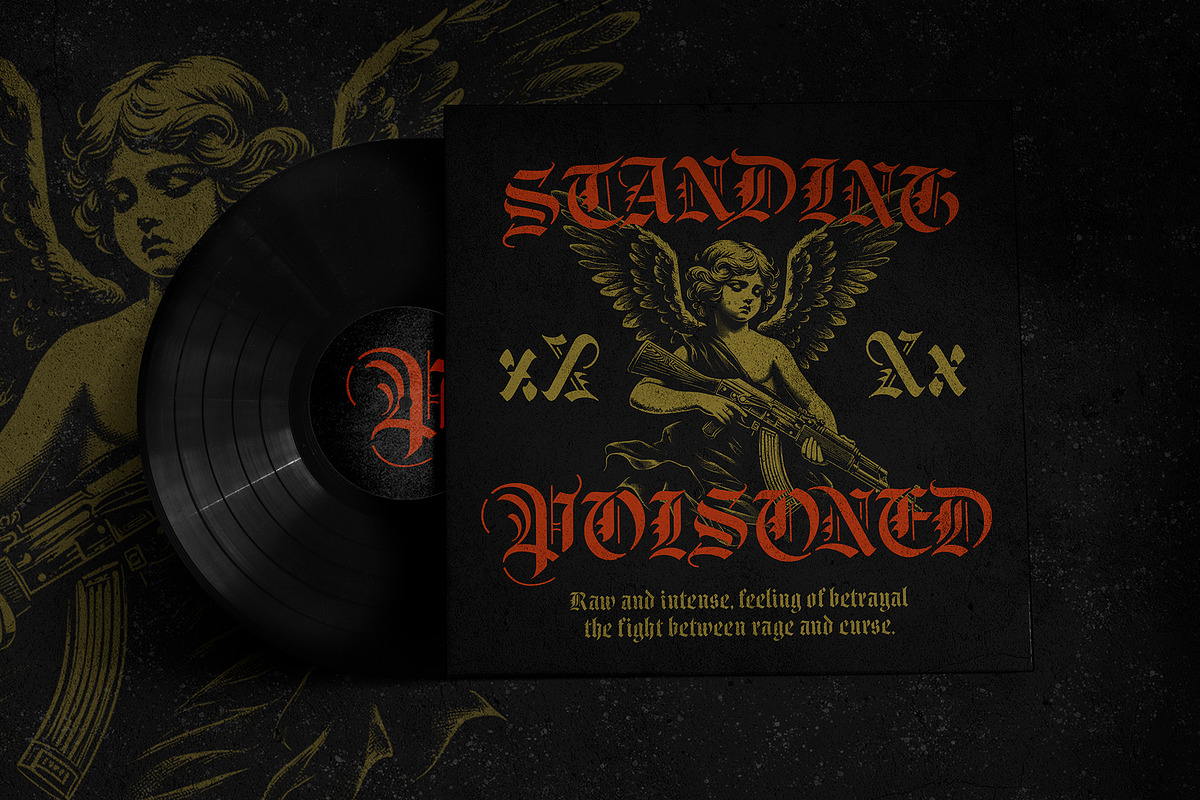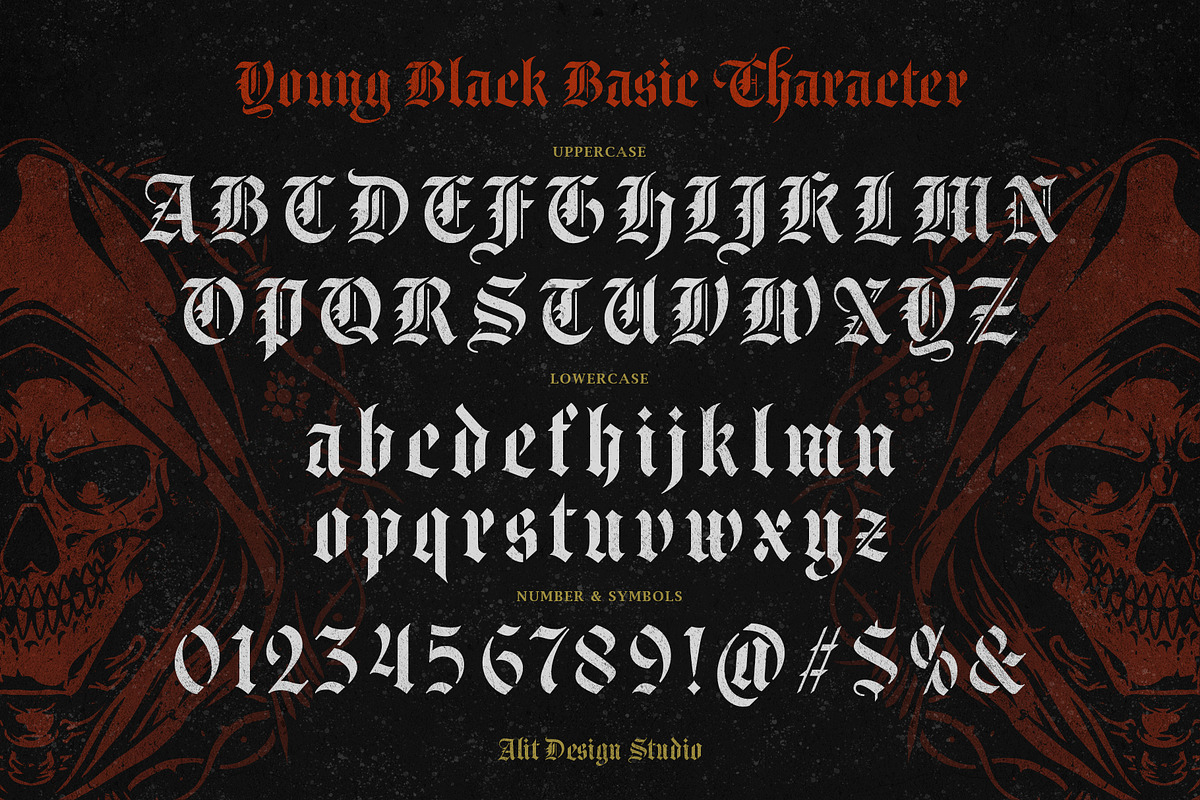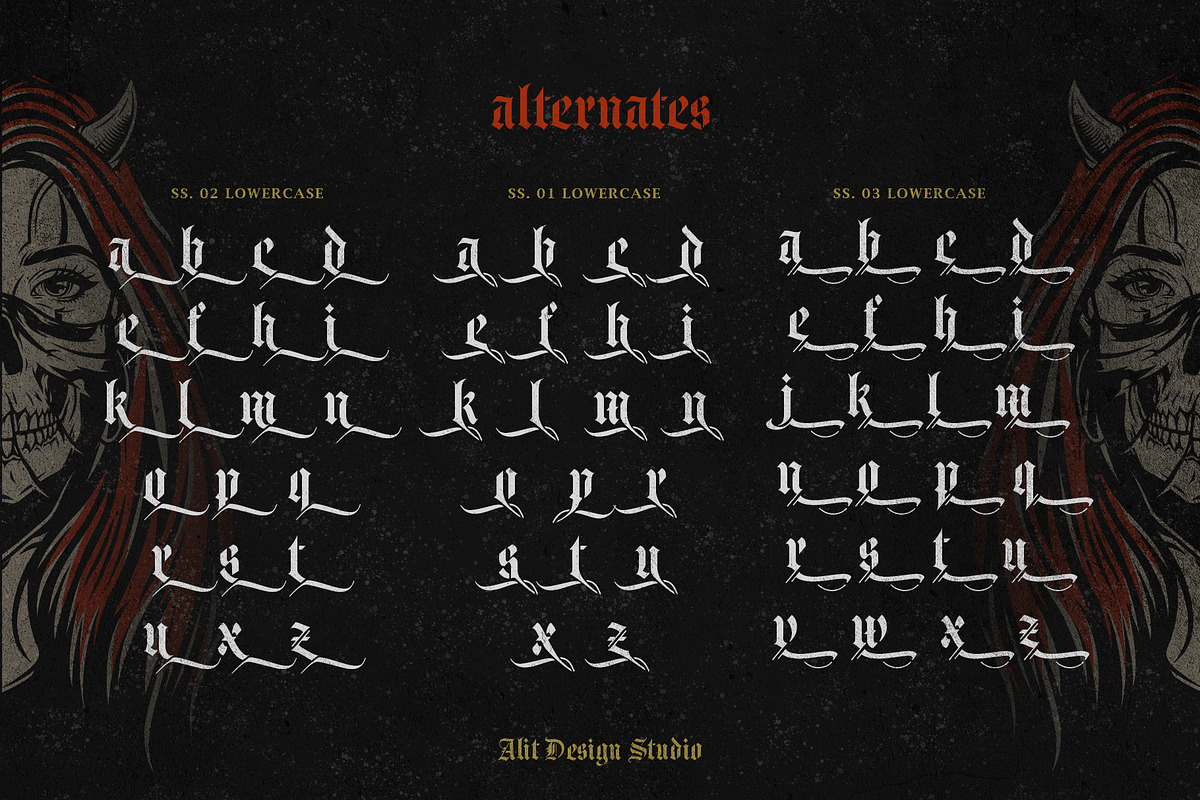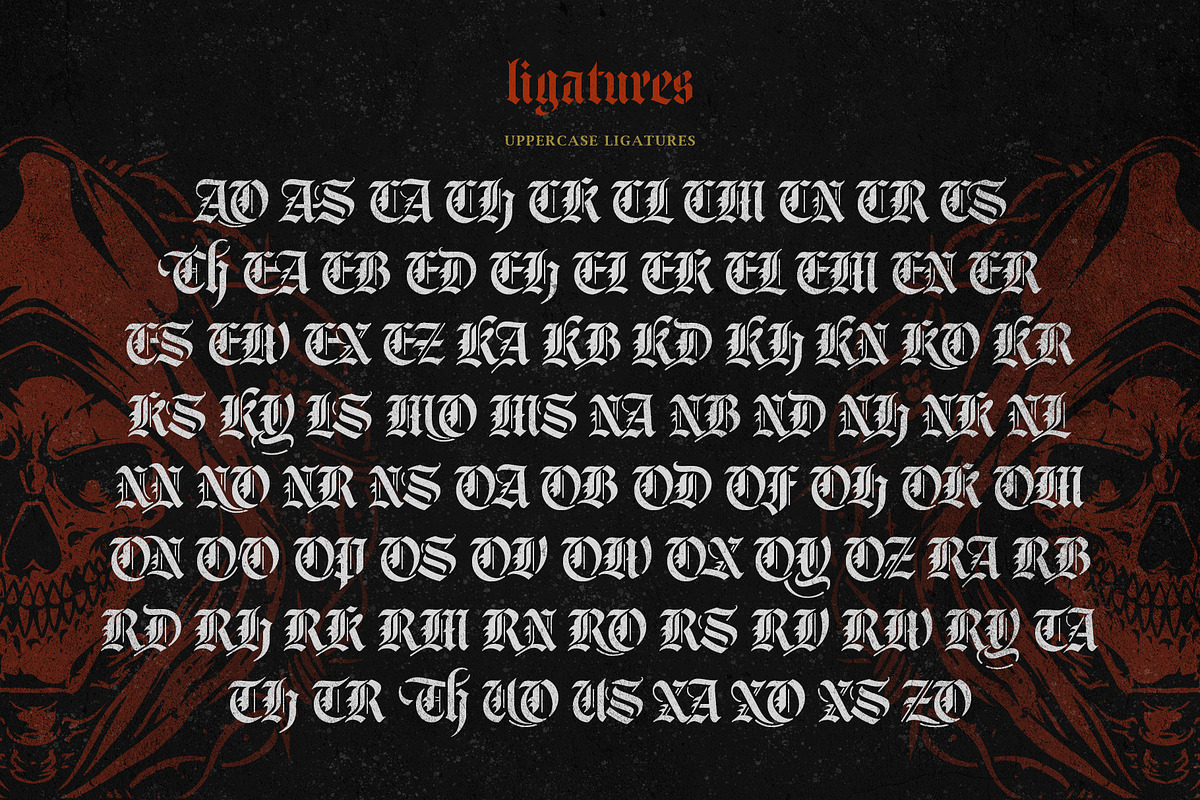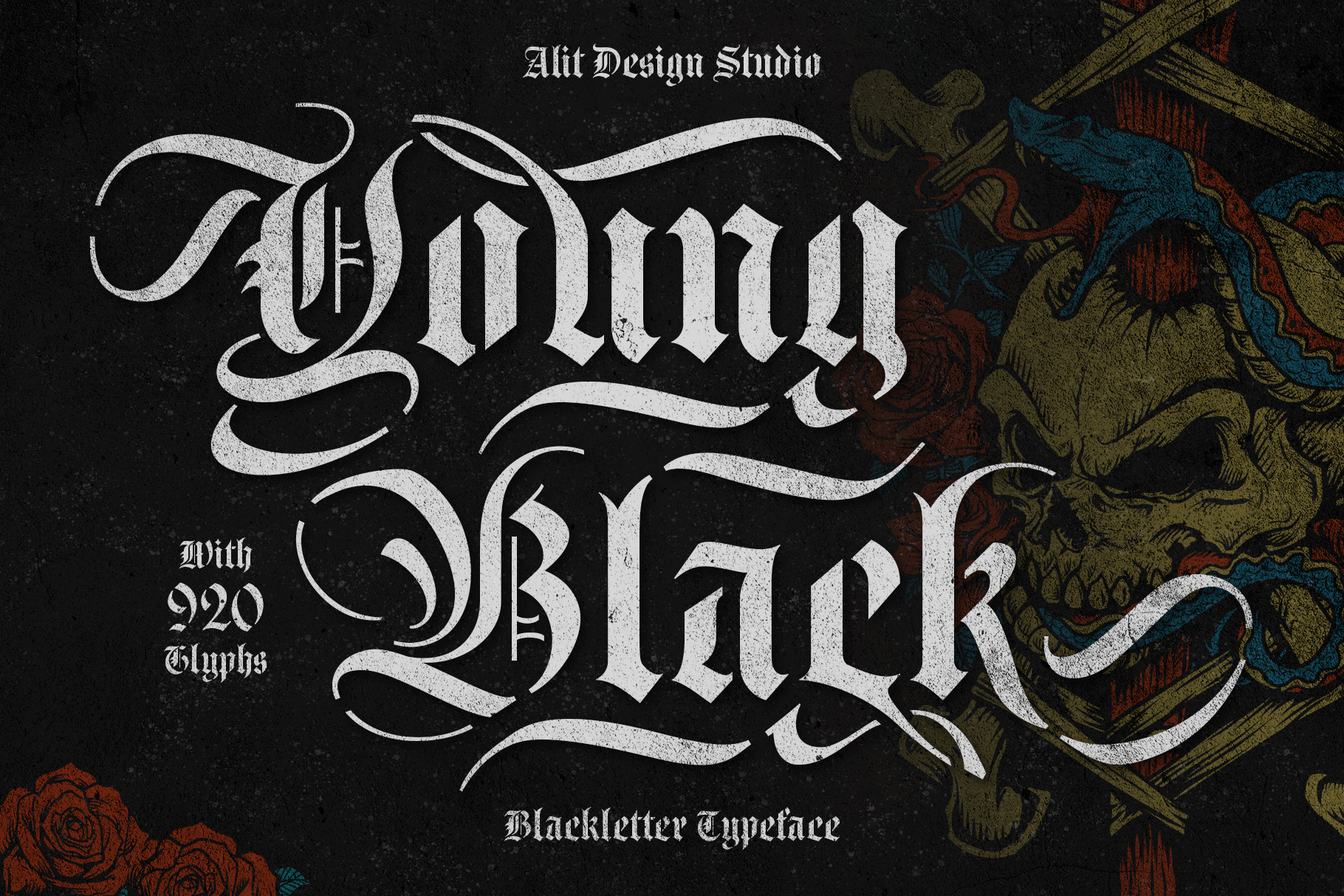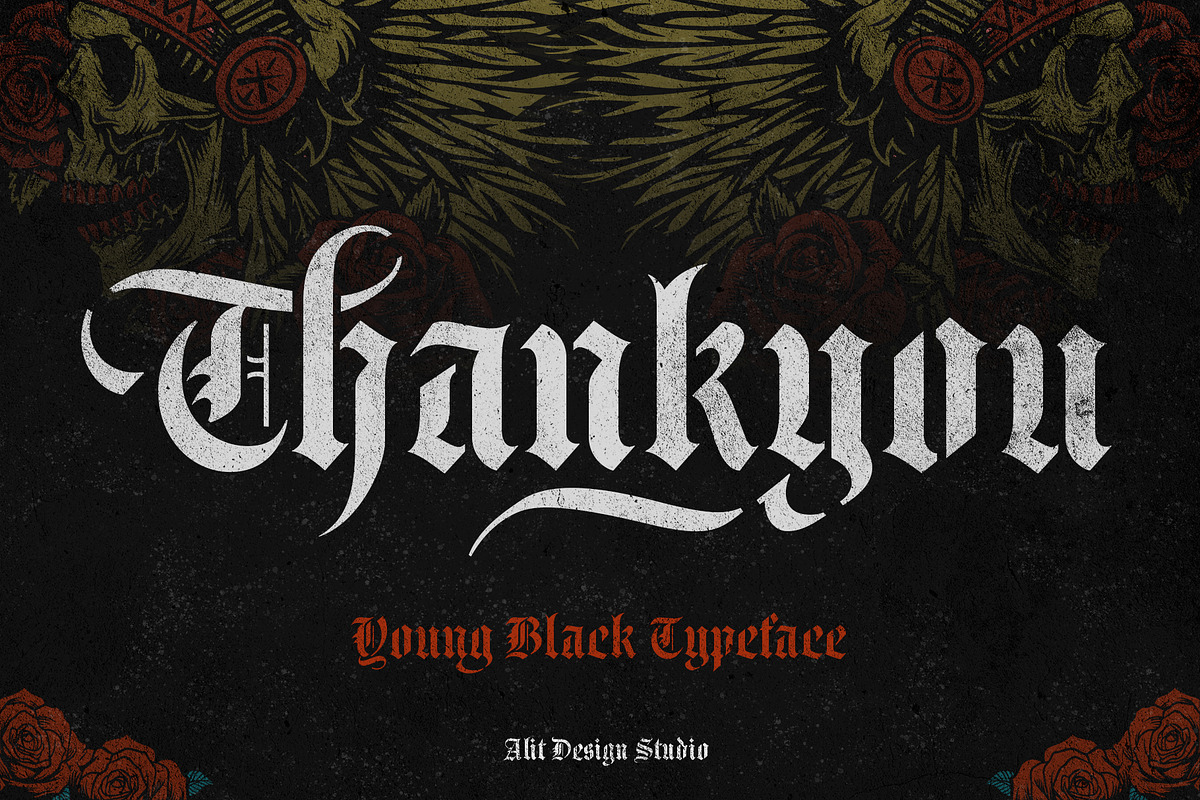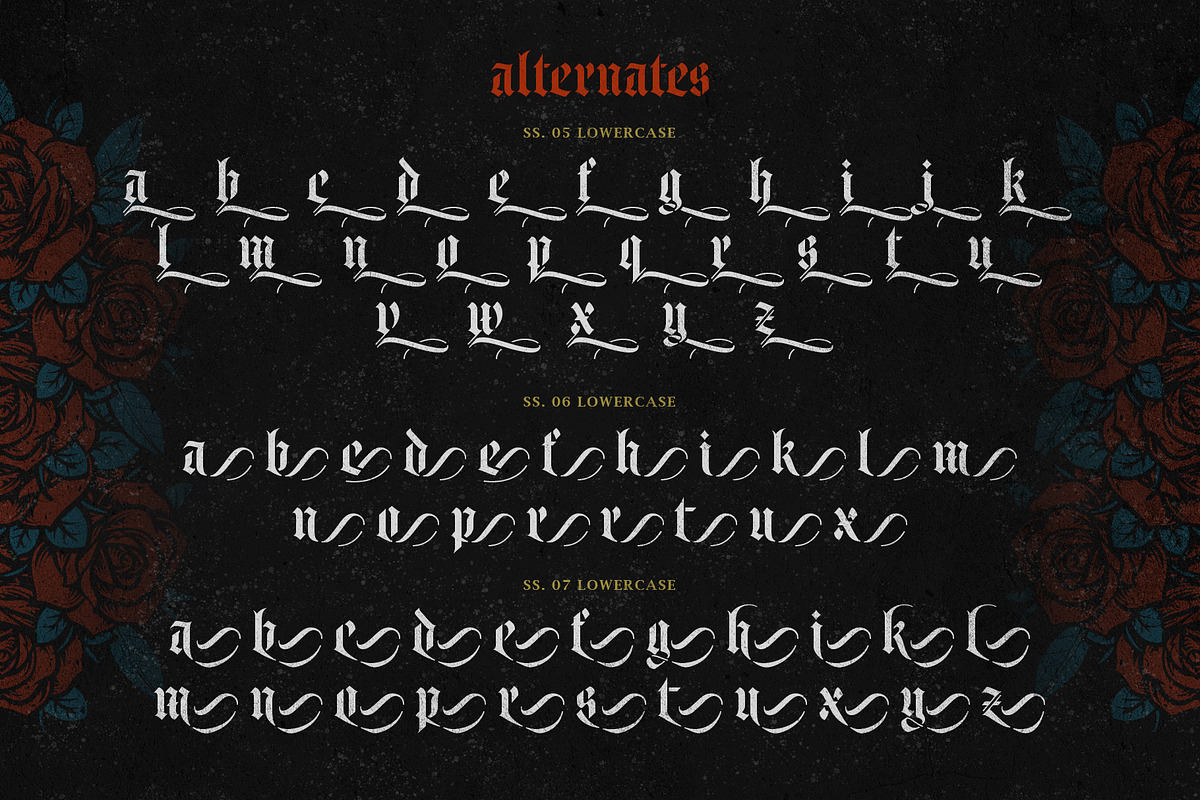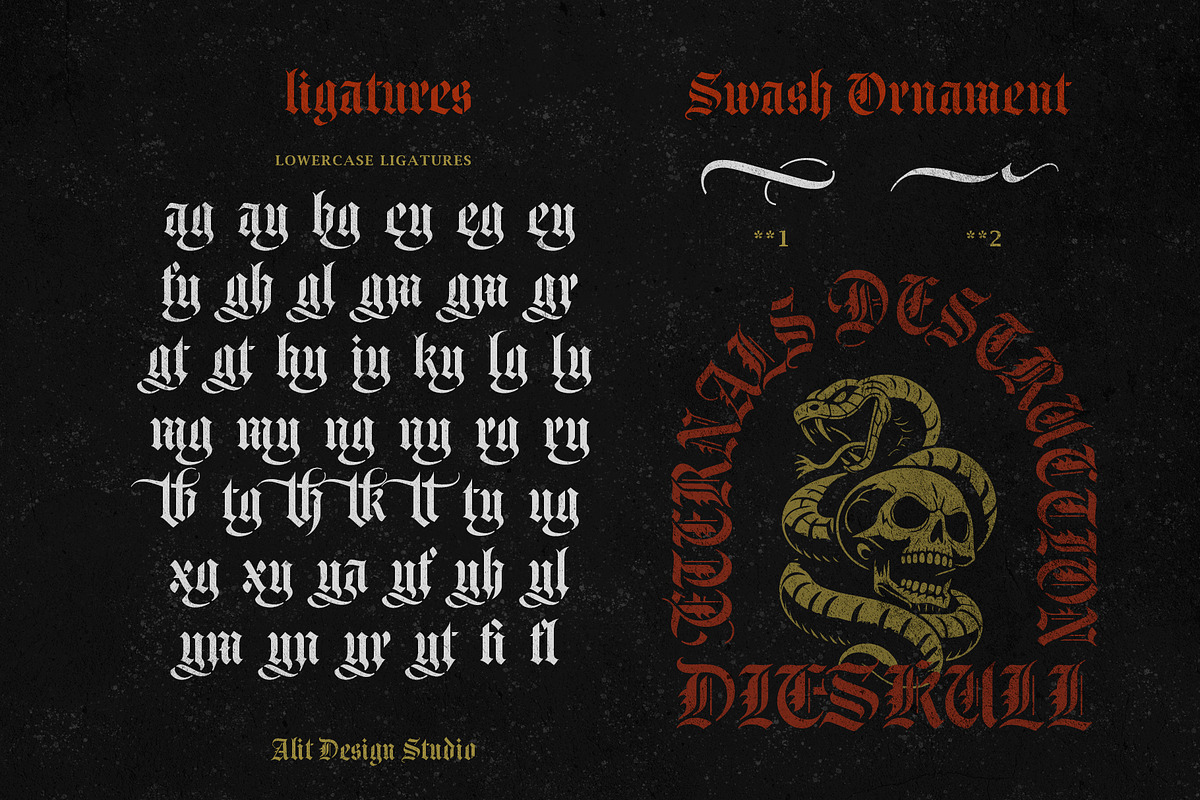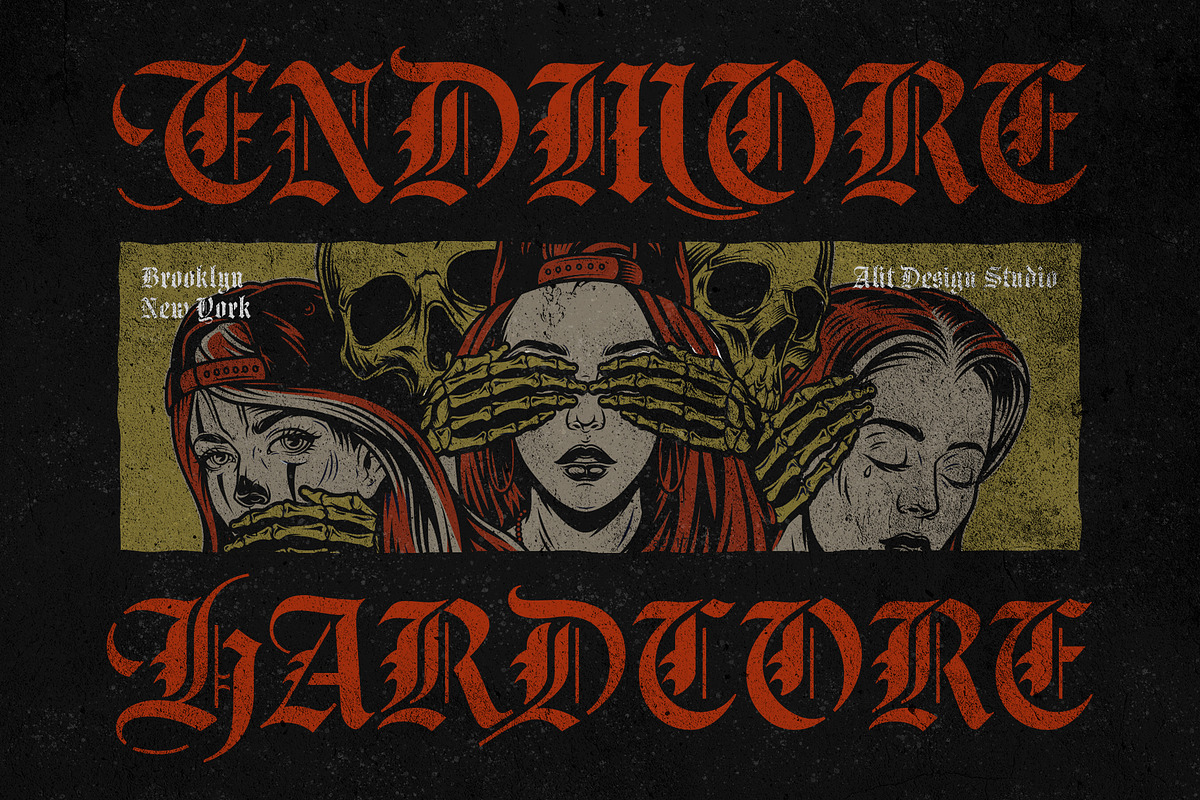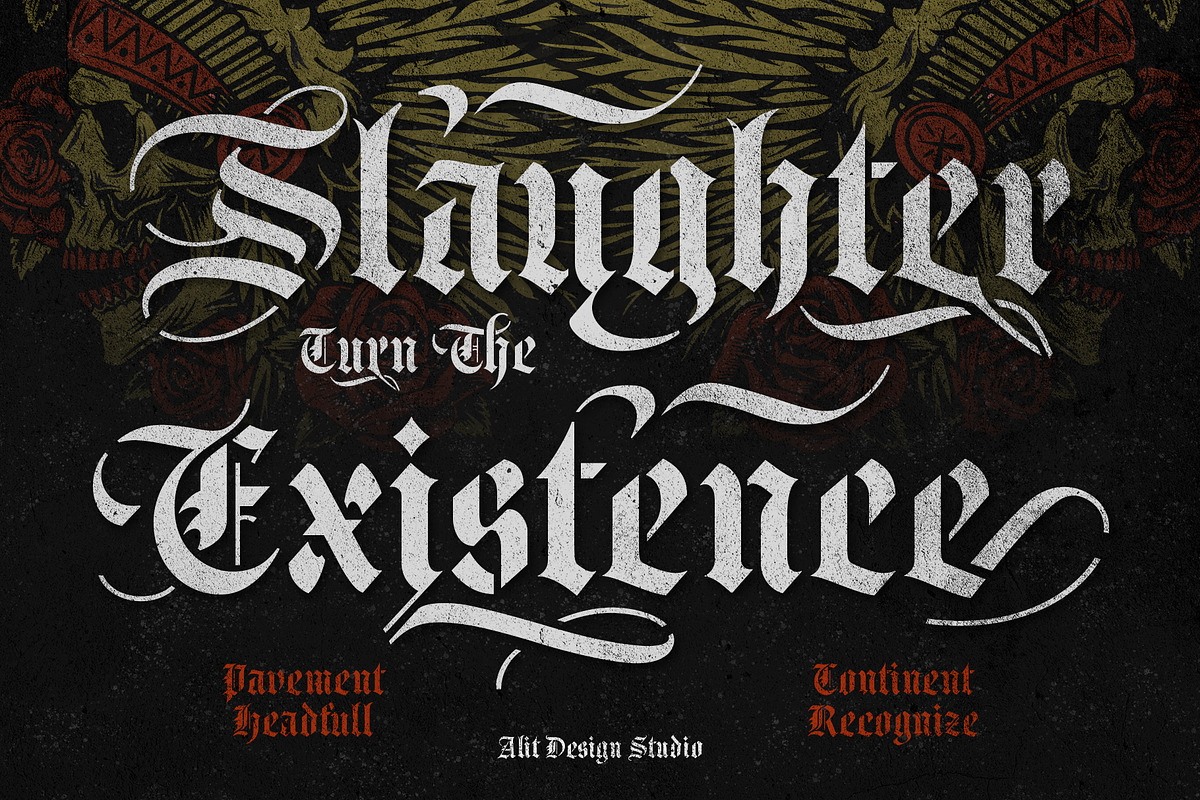
Young Black Typeface
Young Black Typeface – A Bold Fusion of Blackletter & Stencil Artistry
Step into the world of gothic elegance and raw power with Young Black Typeface, a meticulously designed blackletter stencil font that strikes the perfect balance between tradition and modern innovation. This typeface embodies a rebellious yet sophisticated aesthetic, making it ideal for designers looking to create striking visuals with a bold, historical feel.
What sets Young Black apart is its calculated stencil design—crafted with precision to ensure no part of the material is fully detached when cut, preserving the integrity of each character. Whether you’re working with digital projects or physical stencil applications, this typeface guarantees both usability and artistic impact.
1. Precision-Crafted Stencil Blackletter
- Inspired by traditional blackletter calligraphy but adapted for a stencil format that is both stylish and highly functional.
- Each letter has been carefully designed to maintain its structural integrity when cut, making it an excellent choice for printing, engraving, and DIY stencil projects.
2. Extensive Glyph Set with 920 Characters
- A comprehensive character set offering a vast range of typographic possibilities.
- Supports uppercase, lowercase, numbers, punctuation, and symbols to cover all creative needs.
3. 128 Ligatures for Enhanced Aesthetics
- Custom ligatures allow for natural, fluid letter connections, ensuring a seamless and artistic typography experience.
- Perfect for creating unique logotypes, headers, and tattoo-inspired designs.
4. Diverse Stylistic Alternates & Swashes
- Comes with a variety of alternate letterforms and decorative swashes, giving designers the flexibility to craft dramatic, customized compositions.
- Ideal for creating ornate designs, gothic branding, and intricate lettering artwork.
6. Multilingual Support
- Extensive language coverage, making it accessible to a global audience.
- Supports Latin-based alphabets, ensuring compatibility with a variety of international languages.
✔ Tattoos & Gothic Branding – Ideal for tattoo studios, biker clubs, and dark, edgy branding projects.
✔ Logos & Apparel – Perfect for fashion brands, streetwear, and merchandise with a bold, historic feel.
✔ Album Covers & Posters – Adds drama and intensity to music artwork and promotional materials.
✔ Engraving & Stencil Cutting – Designed to retain form when cut, making it excellent for physical applications.
✔ Book Covers & Packaging – Great for fantasy, horror, and medieval-themed projects.
Unleash the Power of Young Black Typeface
Whether you’re designing for print, digital, or physical stencils, Young Black Typeface delivers a bold, intricate, and highly functional typographic experience.